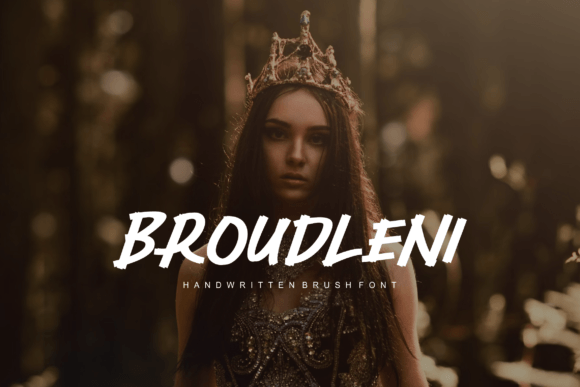
Introducing Broudleni Font: The Modern Brush Font for Creative Designs
In the world of typography, fonts play a crucial role in making or breaking a design. A well-chosen font can elevate your creative project, making it stand out from the crowd. If you’re a designer, crafter, or DIY enthusiast looking for a modern brush font that exudes artistic style, look no further than Broudleni Font. In this article, we’ll dive into the features, benefits, and uses of Broudleni Font, and explore how it can add a creative and stylish touch to your designs.
What is Broudleni Font?
Broudleni Font is a modern brush font that boasts a bold, artistic style. Its smooth, flowing strokes appear as if they were painted by hand, giving it a unique, organic feel. This font is perfect for designers who want to add a personal touch to their work, making it ideal for creative projects that require a distinctive look. Whether you’re designing a logo, poster, invitation, or any other visual material, Broudleni Font is sure to make a statement.
Key Features of Broudleni Font
- Modern Brush Style: Broudleni Font features a modern brush style that is both bold and artistic. Its unique strokes and flourishes make it perfect for designs that require a creative edge.
- Smooth Flowing Strokes: The font’s smooth, flowing strokes give it a hand-painted look, adding a touch of personality to your designs.
- High-Quality Design: Broudleni Font is designed with high-quality craftsmanship in mind, ensuring that it looks great in any design or project.
- Versatile: This font is versatile and can be used for a wide range of design projects, from logos and posters to invitations and more.
Benefits of Using Broudleni Font
So, why choose Broudleni Font for your design projects? Here are just a few benefits of using this amazing font:
- Adds Creative Touch: Broudleni Font adds a creative and stylish touch to your designs, making them stand out from the crowd.
- Easily Readable: Despite its artistic style, Broudleni Font is easily readable, making it perfect for designs that require a clear message.
- Customizable: This font can be customized to fit your design needs, allowing you to adjust the size, color, and style to suit your project.
- Time-Saving: With Broudleni Font, you can create stunning designs in no time, saving you time and effort in the design process.
Uses of Broudleni Font
Broudleni Font is a versatile font that can be used for a wide range of design projects, including:
- Logo Design: Create a bold and artistic logo for your business or brand with Broudleni Font.
- Poster Design: Design eye-catching posters for events, promotions, or advertising campaigns using this font.
- Invitation Design: Add a creative touch to your invitations, whether it’s for a wedding, birthday party, or any other special occasion.
- Social Media Graphics: Use Broudleni Font to create stunning social media graphics, such as Facebook posts, Instagram stories, or Twitter headers.
Tips for Using Broudleni Font
To get the most out of Broudleni Font, here are some tips to keep in mind:
- Pair with Simple Backgrounds: Pair Broudleni Font with simple backgrounds to make it stand out and avoid visual clutter.
- Adjust Font Size: Adjust the font size to ensure that it’s easily readable and visually appealing.
- Add Effects: Add effects, such as shadows or textures, to enhance the font’s appearance and make it more engaging.
| Font Name | Broudleni Font |
| Author | artchiles design |
In conclusion, Broudleni Font is a modern brush font that offers a unique and artistic style, perfect for designers, crafters, and DIY enthusiasts. Its smooth, flowing strokes and bold style make it ideal for creating eye-catching designs, such as logos, posters, or invitations. With its versatility, readability, and customizability, Broudleni Font is a great addition to any design project. Whether you’re looking to add a creative touch or simply want to try something new, Broudleni Font is definitely worth checking out.